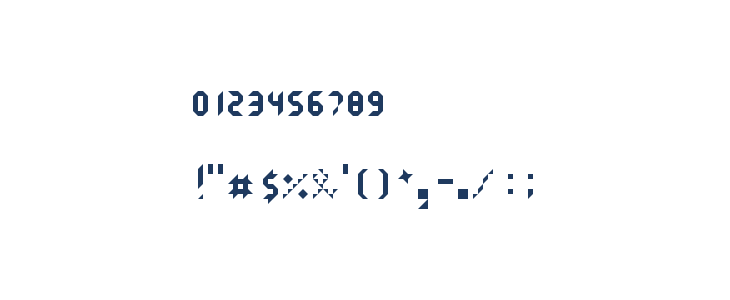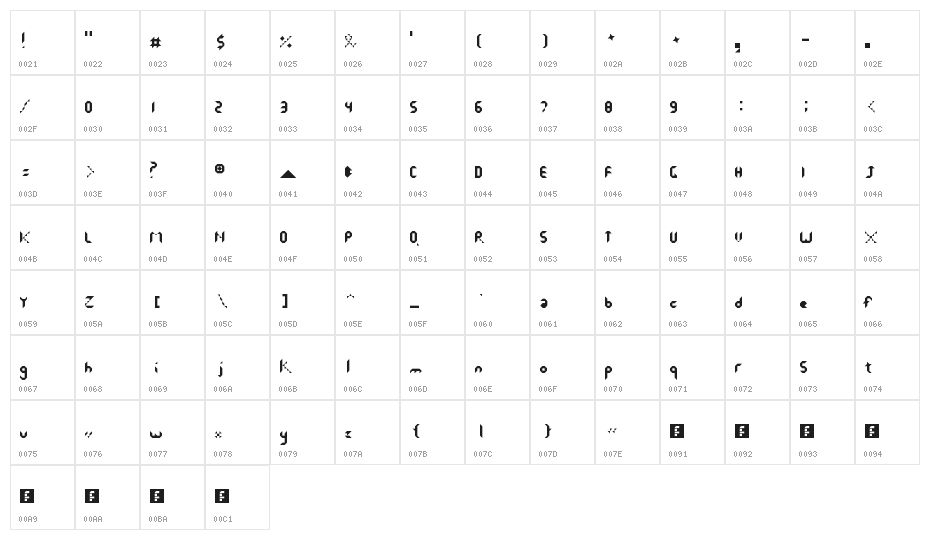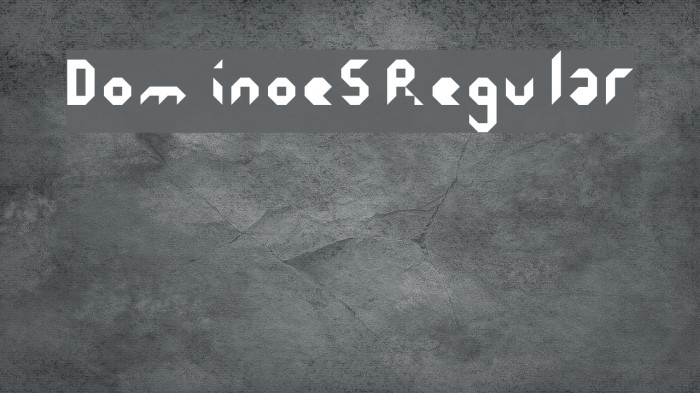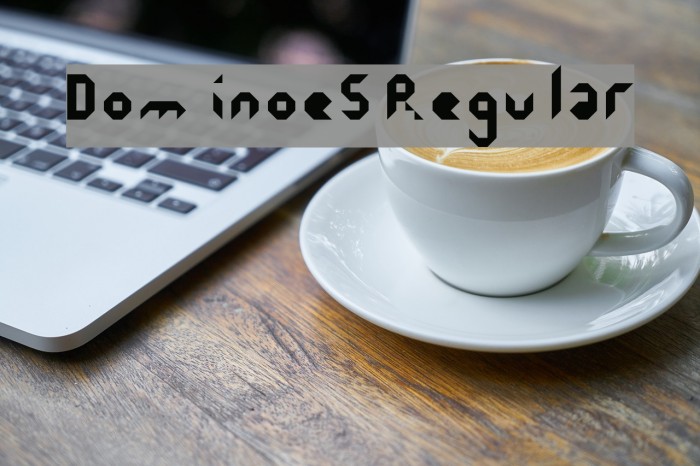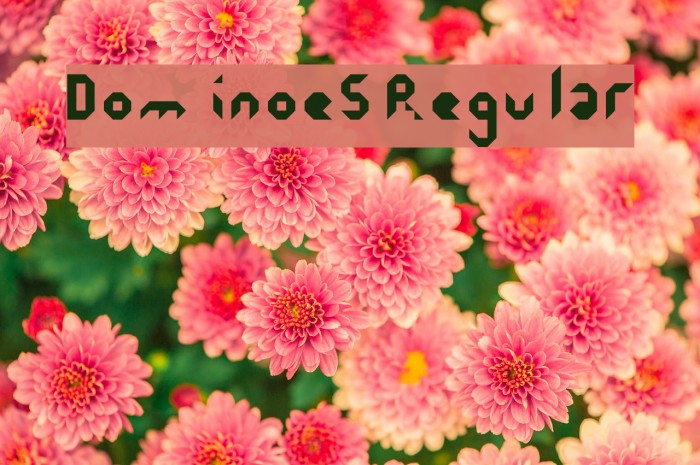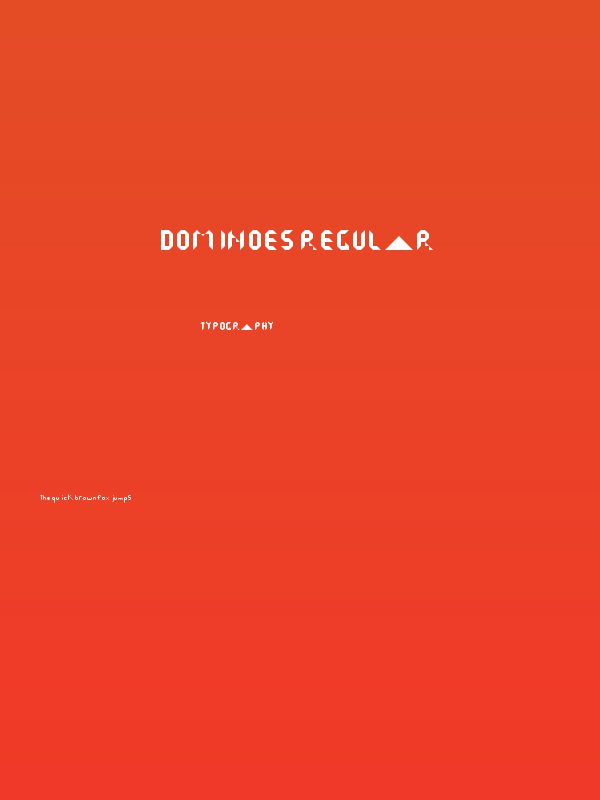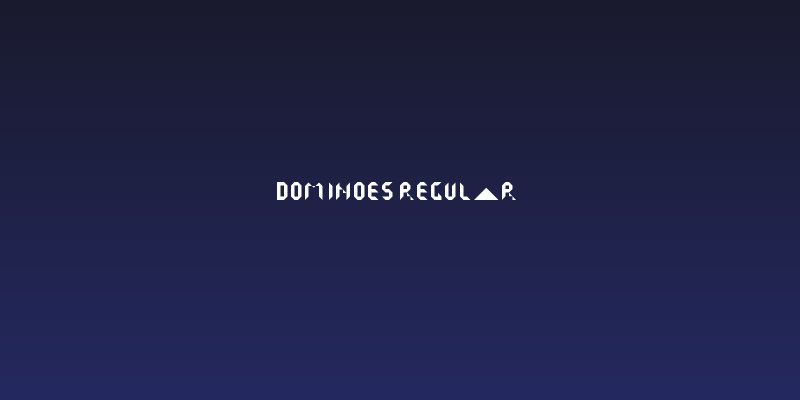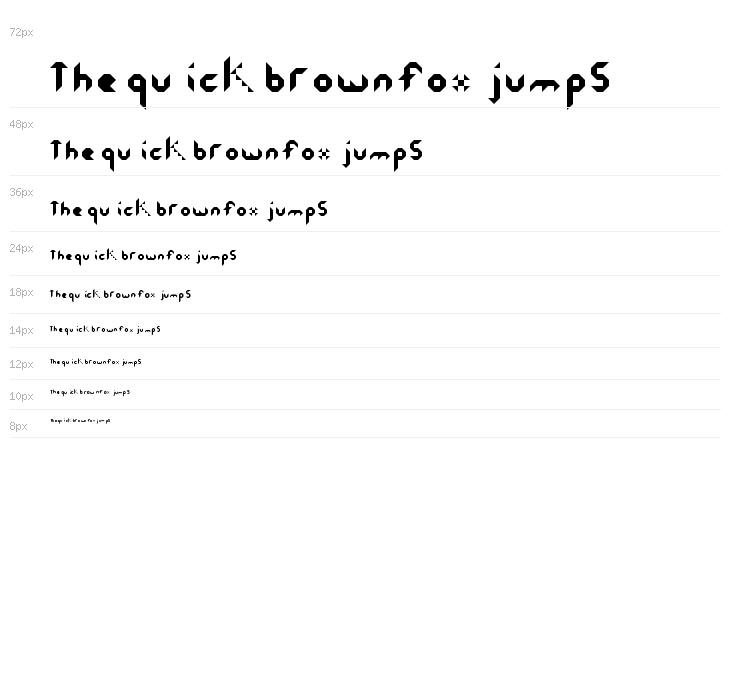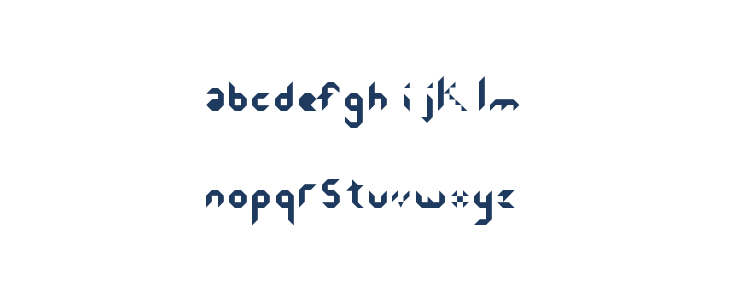
Dominoes Regular Font
Dominoes Regular Description
This font features a unique, geometric design with sharp angles and a bold presence. Each character is crafted with a series of angular cuts and shapes, creating a striking and modern appearance. The uppercase and lowercase letters maintain a consistent style, with the lowercase being slightly more compact. Numbers and special characters follow the same angular theme, ensuring uniformity across all glyphs. The font's distinct style makes it stand out, ideal for projects that require a modern and edgy look. Its bold and artistic nature is perfect for creative and unconventional designs.